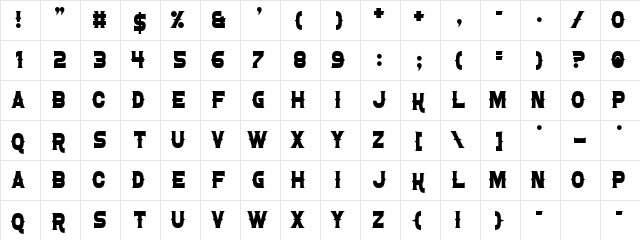
Confetti Western Regular
Design Context for Confetti Western Typeface
Confetti Western echoes the hand-painted signage and woodblock typography of the American frontier, with a warm, rugged personality.
A natural fit for craft spirits, ranch branding, rodeo events, and Americana-inspired design work.
Font Pairing: Combine Confetti Western with a simple slab or neutral sans — period-accurate companions reinforce the vintage feel without competing for attention.
Pro Tip: Use Confetti Western for short, impactful bursts of text — it shines in poster headlines and product names rather than extended copy.